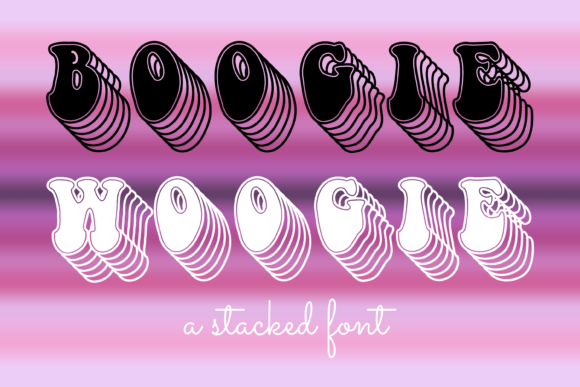
The Boogie Woogie Font: A Groovy Addition to Your Design Toolkit
I still remember the time I was working on a project for a client who wanted a fun, energetic vibe. I had all the design elements in place, but something was missing – the perfect font. I scoured the internet, tried out countless fonts, but none seemed to capture the essence of the project. That was until I stumbled upon the Boogie Woogie font. It was like a ray of sunshine on a cloudy day! ✨
Boogie Woogie is an incredibly cool font that can instantly elevate your designs, DIY crafts, or any creative project that requires a touch of personality. In this article, I’ll share my experience with this amazing font, its features, and how to make the most of it.
What I Love About Boogie Woogie
- Unique and quirky design that adds a touch of whimsy to any project 🎉
- Highly versatile and can be used for a wide range of designs, from posters to social media graphics 📱
- Easy to read, even at smaller font sizes, making it perfect for body text or captions 📚
- Supports OpenType features, glyphs, and stylistic alternates, giving you plenty of creative options 🤩
While Boogie Woogie is an amazing font, it’s not without its quirks. For instance:
- Some characters may not work well in all contexts, so it’s essential to test the font thoroughly ⚠️
- It may not be the best choice for very formal or professional designs, as it’s more playful and attention-grabbing 🤔
The Backstory of Boogie Woogie
Boogie Woogie was designed by a team of creatives who wanted to create a font that captured the essence of fun and playfulness. Inspired by the classic boogie woogie music of the 1940s and 1950s, they set out to create a font that would make people smile. And, judging by its popularity, I think they succeeded! 🎵
Q: Is Boogie Woogie a script font?
A: While Boogie Woogie has some script-like qualities, it’s actually a unique blend of script and sans-serif elements. It’s perfect for adding a touch of personality to your designs!